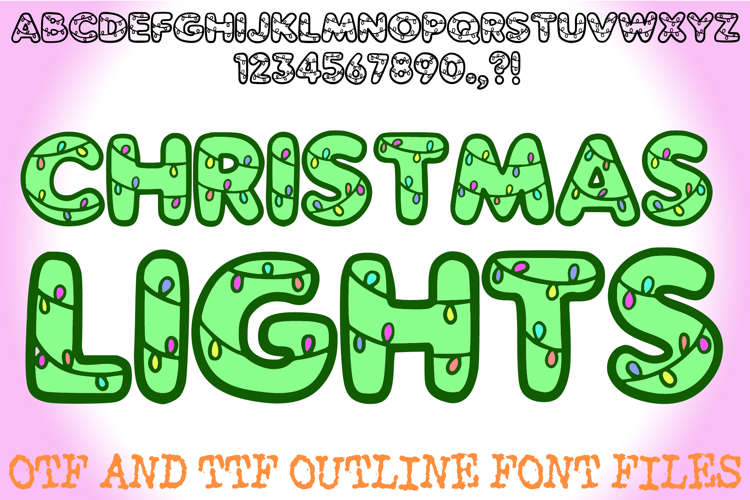
Christmas Festive Lights Handwriting Alphabet Lettering ABC
Illuminate your holiday designs with the Christmas Lights Display Font! This charming and highly decorative typeface features rounded, bubbly letters wrapped perfectly in a string of festive holiday lights. It's the ideal font for adding a cheerful, celebratory glow to all your seasonal projects.
The bold, clear letterforms ensure high legibility, while the integrated lights provide that essential Christmas magic. Use this font for holiday cards, personalized gifts, festive apparel, party invitations, or winter event headers. This font instantly signals cheer and celebration!